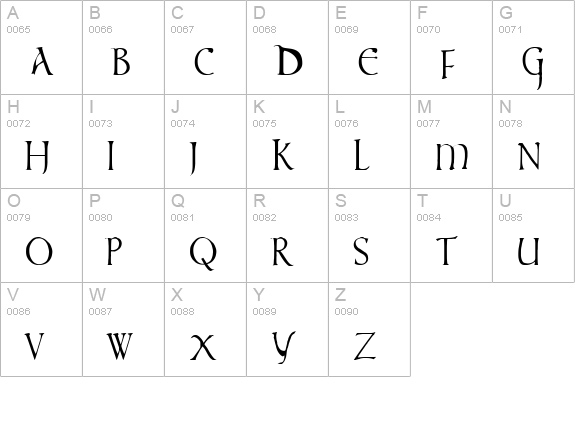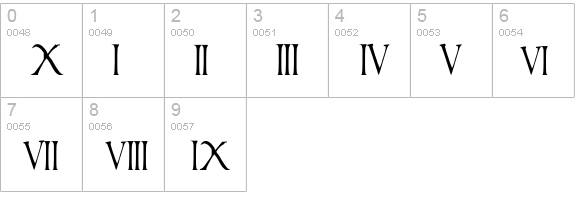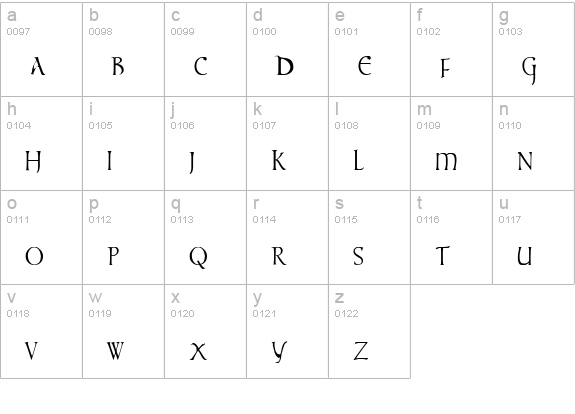
times new vespasian Font Details
Introducing the captivating and timeless Times New Vespasian font, a true testament to elegance and sophistication. This font embodies a harmonious blend of traditional charm and modern appeal, making it the perfect choice for a wide range of creative projects. With its meticulously crafted serifs and graceful letterforms, Times New Vespasian exudes a sense of refinement and professionalism that is sure to captivate any audience. Its versatility allows it to effortlessly adapt to various design styles, whether it be for formal invitations, editorial layouts, branding, or even elegant signage. One of the most remarkable features of Times New Vespasian is that it is available for free download at FontsMarket.com. This means that you can enhance your creative endeavors without any financial constraints, allowing your imagination to soar freely. As a freely accessible font, it opens up a world of possibilities for designers, students, and enthusiasts alike, enabling them to bring their visions to life without any limitations. The clarity and legibility of Times New Vespasian make it a trusted choice for body text, ensuring that your message is effortlessly conveyed to your readers. Its timeless aesthetic and classic proportions make it a reliable companion for both print and digital projects, ensuring that your designs stand the test of time. Whether you're looking to add a touch of elegance to your next branding project, create visually stunning invitations, or simply elevate your typography game, Times New Vespasian is the perfect solution. Embrace the beauty of this font, freely available for download at FontsMarket.com, and unlock a world of creative possibilities. Let its refined allure transport your designs to new heights, captivating both your clients and audience with its timeless charm.